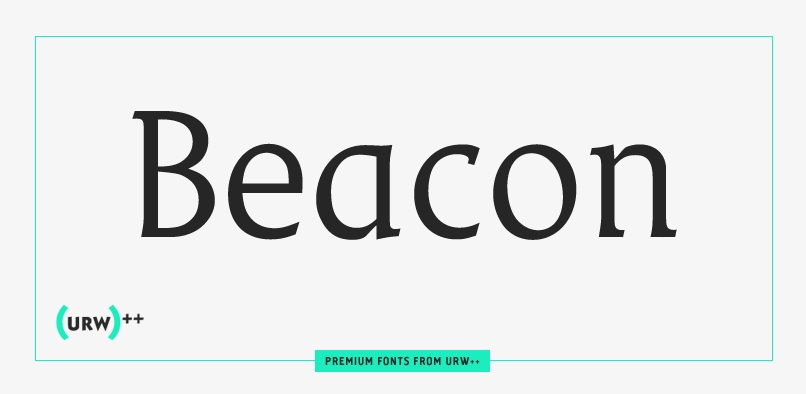
Beacon Font
Beacon Font is perfect for maritime company branding, coastal navigation services, lighthouse tourism marketing, marine safety equipment packaging, harbor authority signage, nautical consulting firms, oceanographic research institutions, and seafaring adventure promotions. This guiding typeface excels in applications where maritime guidance and navigational reliability are essential for creating trustworthy and authoritative brand experiences that honor seafaring traditions.
What makes Beacon Font truly exciting is its powerful embodiment of maritime guidance and nautical reliability that captures the essential role of lighthouses and navigation beacons in ensuring safe passage through treacherous waters. The font features bold, sturdy letterforms with commanding presence and maritime-inspired details that mirror the unwavering strength of lighthouse structures and the dependable guidance they provide to mariners. Its authoritative personality and navigational character create an immediate sense of safety and maritime expertise that resonates with audiences seeking reliable nautical services and coastal guidance solutions. The typeface's maritime heritage and guiding appeal make it perfect for brands wanting to convey reliability, guidance, and connection to the time-honored traditions of maritime navigation and coastal safety.
The Beacon Font family includes multiple weights from Regular to Bold, complemented by condensed versions that enhance its maritime versatility. The font offers comprehensive character sets with nautical symbols, navigation indicators, and maritime styling details that enhance its coastal aesthetic. Additional graphic elements including lighthouse beams, compass roses, anchor motifs, and navigational patterns provide designers with complete branding tools rooted in maritime traditions and coastal safety culture.